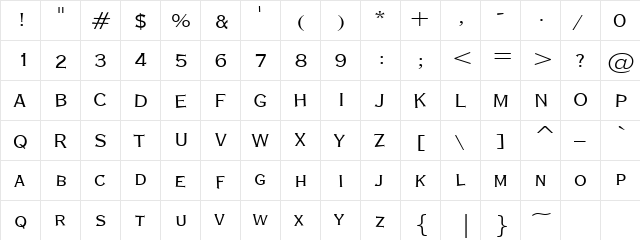
CK Regal Regular
Design Context for CK Regal Typeface
CK Regal offers clean, dependable letterforms without strong stylistic allegiance, making it a practical choice for designers who need flexibility.
Pro Tip: Use CK Regal in both headline and body roles to test its range before committing to a single application.